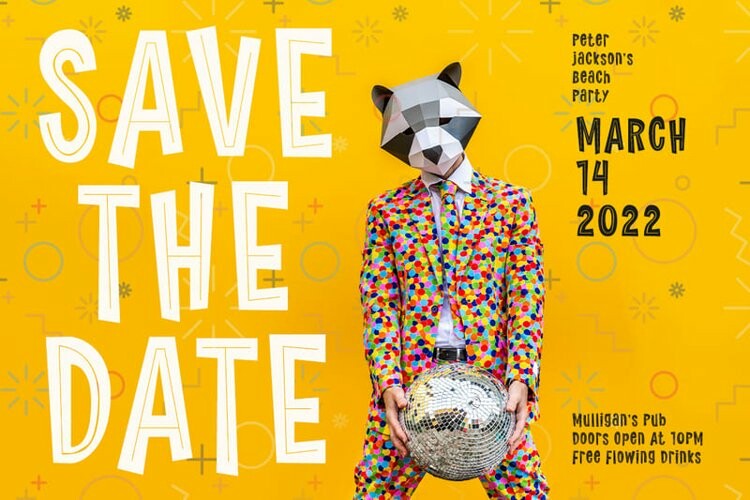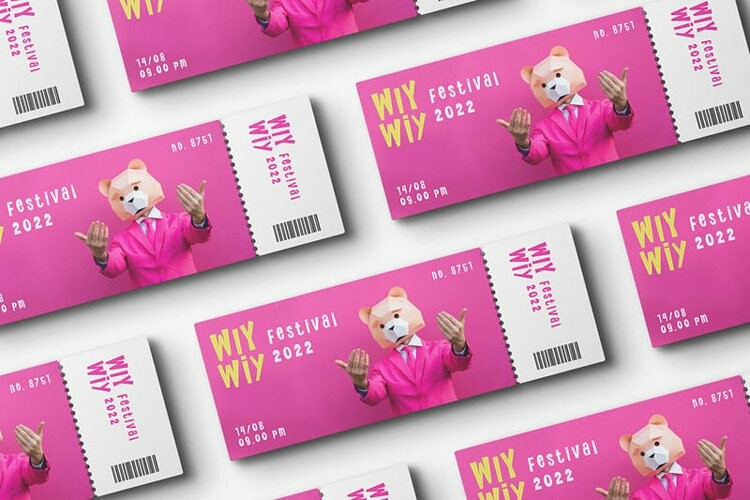
Youth Energy Font
Fun and sort of carefree sans-serif that resemblance the young and eager to explore the spirit of the youth.
Suit perfectly for provocative teenagers and encouraging themes books market, sport poster, stationary, school supplies font, youtube covers, youtube thumbnails, social media page covers, and so on…